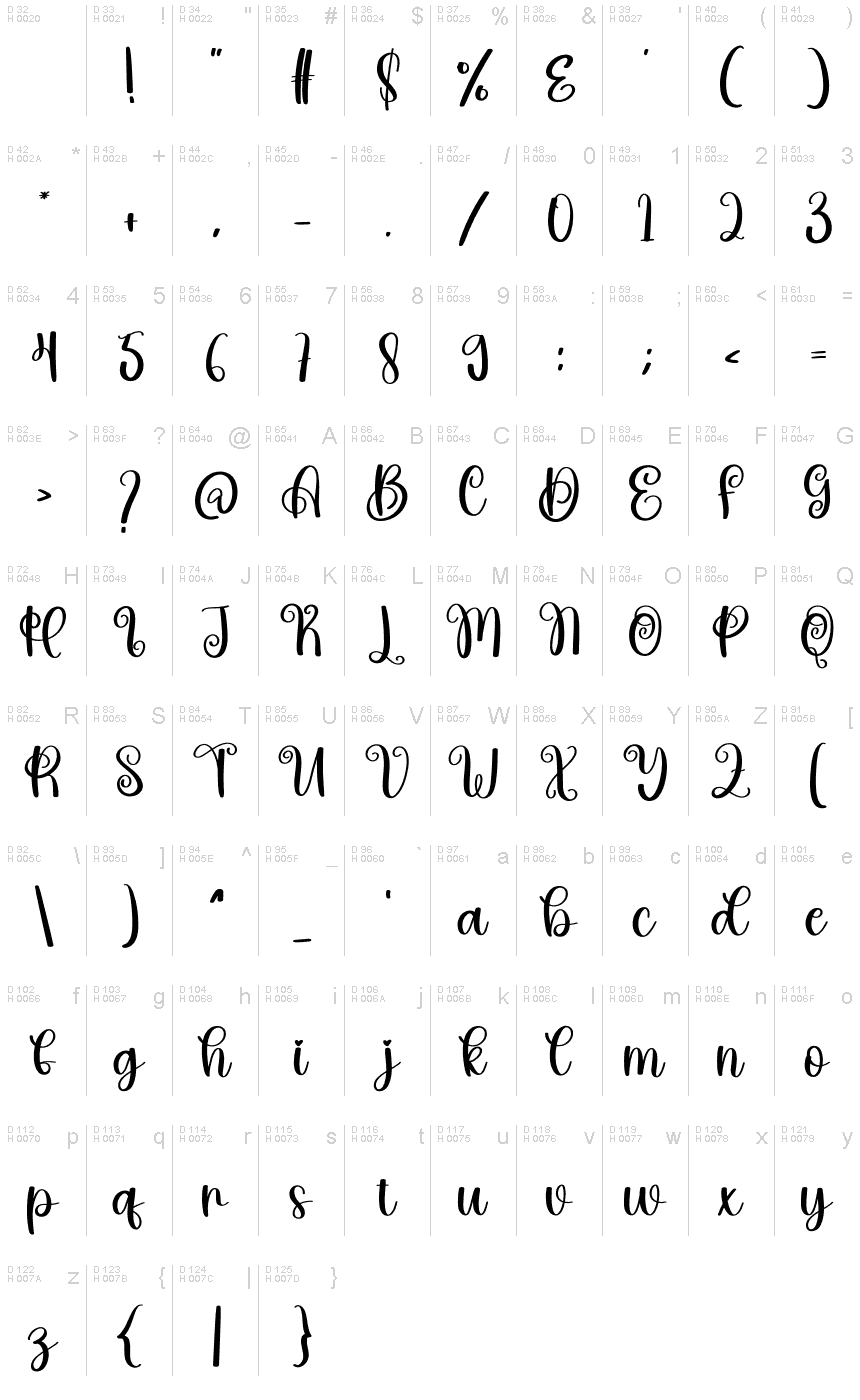
Restie
Restie is a stunning calligraphy font designed by scratchones that exudes beauty in every stroke. With its elegant curves and graceful loops, this semi-bold typeface is perfect for projects that require a touch of sophistication and refinement. Whether you're creating wedding invitations, logo designs, or social media graphics, Restie's timeless appeal will elevate your work to new heights. Its versatile width makes it suitable for both bold headlines and delicate body text. Add some allure to your next project with Restie - the epitome of refined beauty in typography.
the latest style letters are perfect for wall displays, wedding invitations, social media post logos,
advertisements, product packaging, product designs, labels, photography, watermarks, invitations, stationery,
and any project that requires taste handwriting.